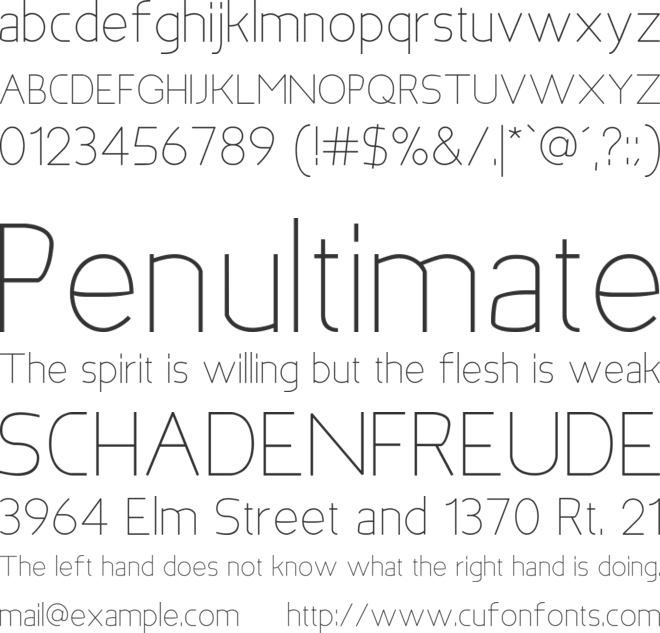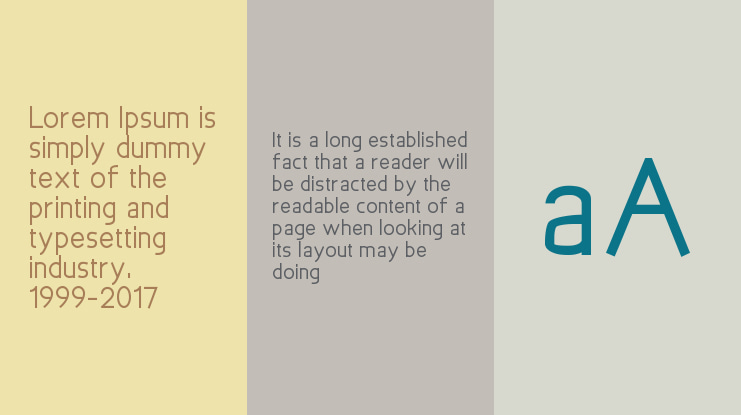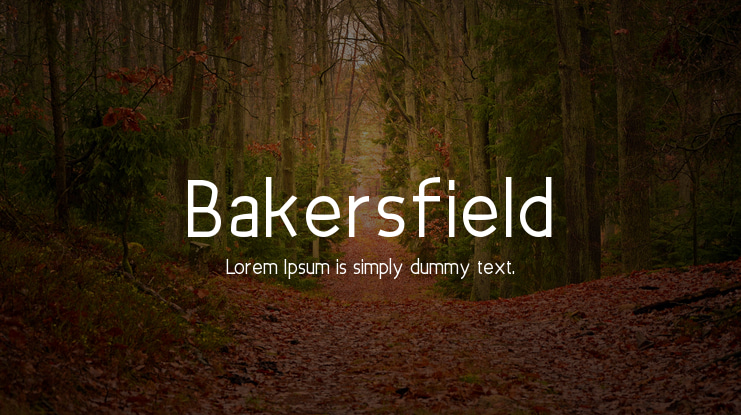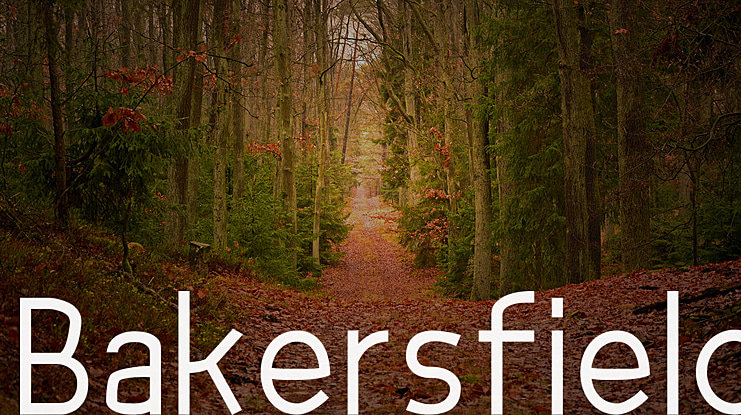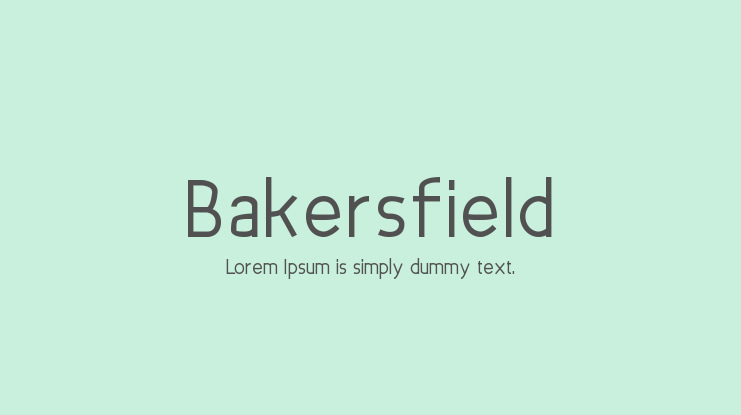
Bakersfield Font Family
Osama El Khalfaoui
Bakersfield is an elegant geometric sans-serif typeface of 22 weights. Bakersfield draws inspiration from 1920s geometric-style typefaces by having clean and highly legible forms constructing the type. The family is characterized by excellent legibility both in print and on the web, a well-finished geometric design, highly precise kerning.